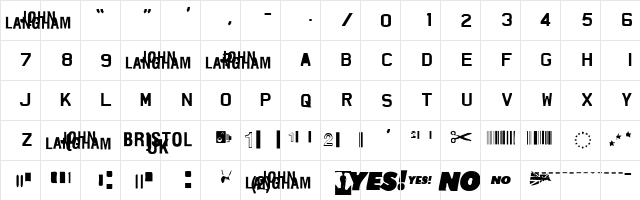
Johndvl Medium Font Preview
Johndvl Medium
Design Context for Johndvl Typeface
Johndvl takes a measured approach to typography — its balanced proportions and neutral character make it a reliable workhorse for both digital and print work.